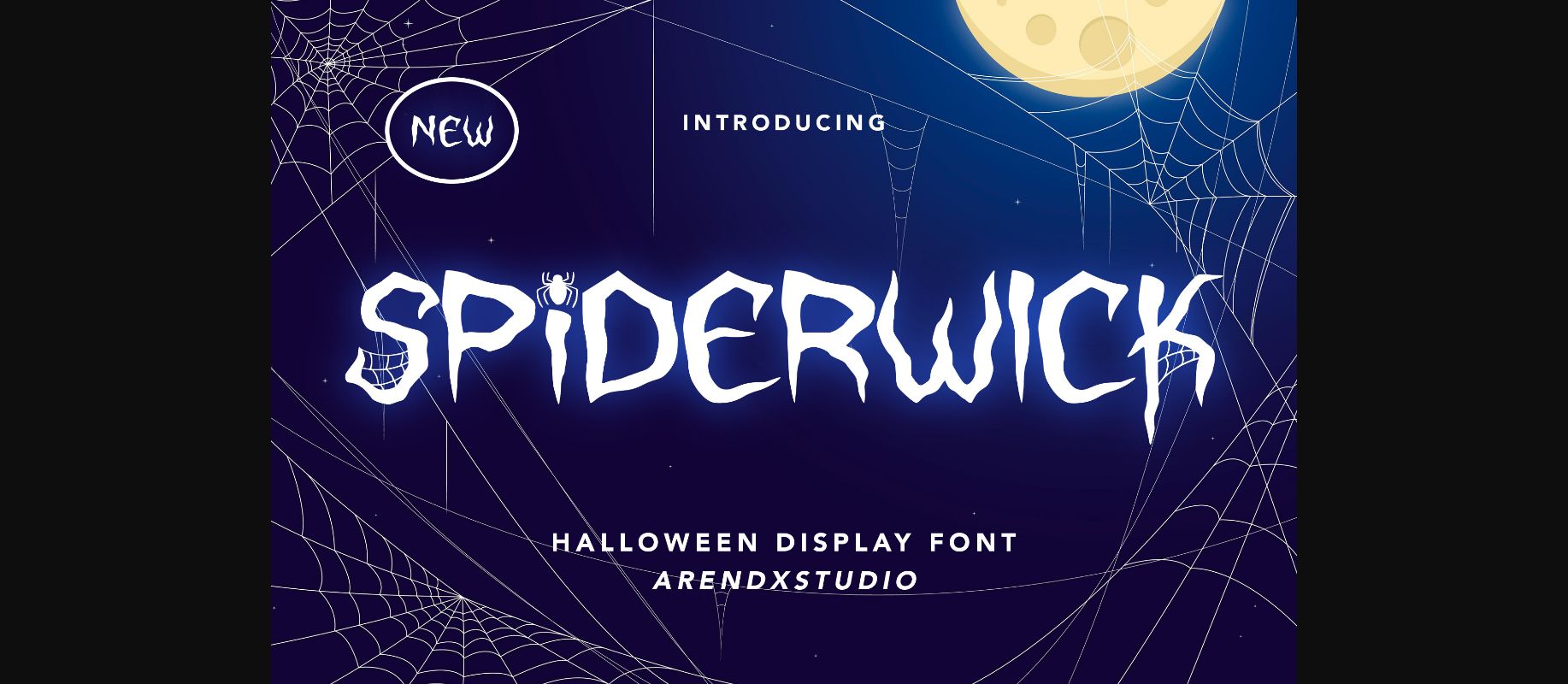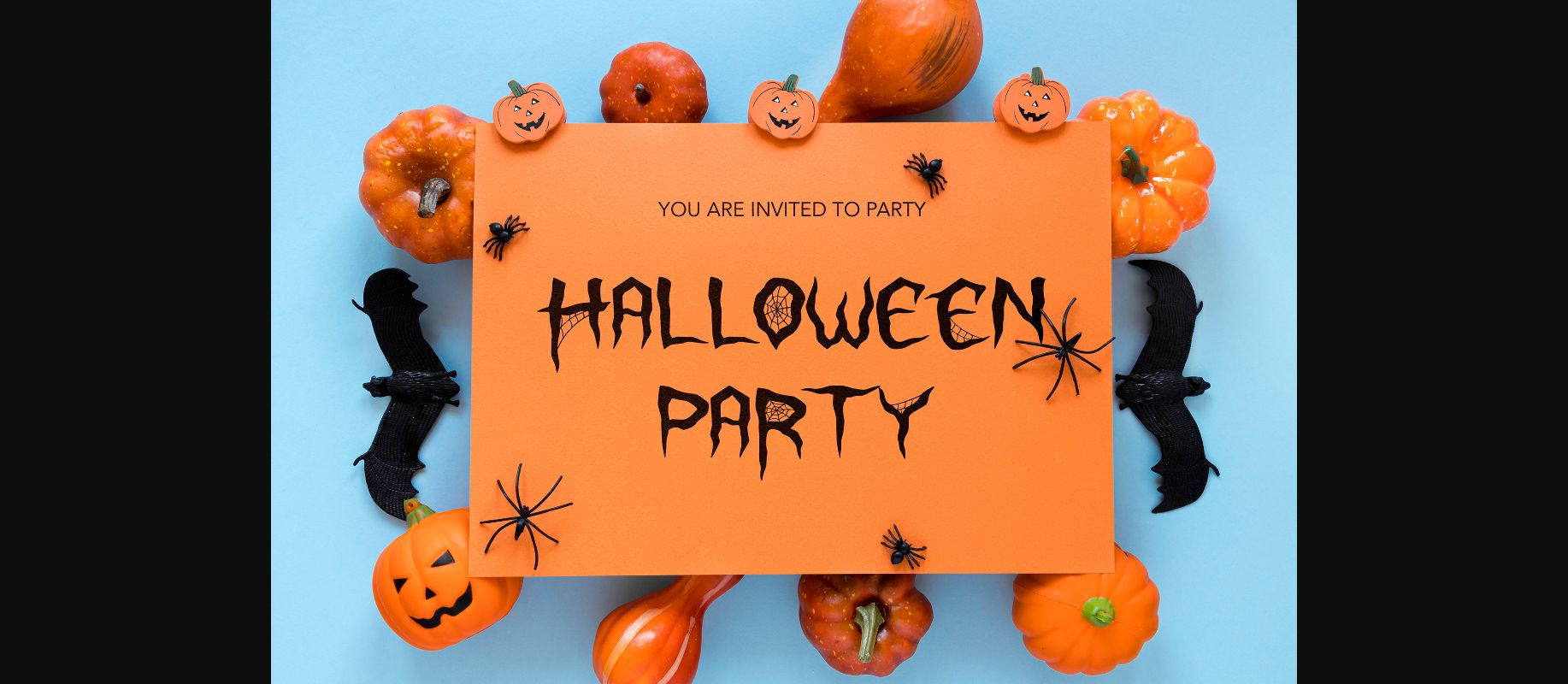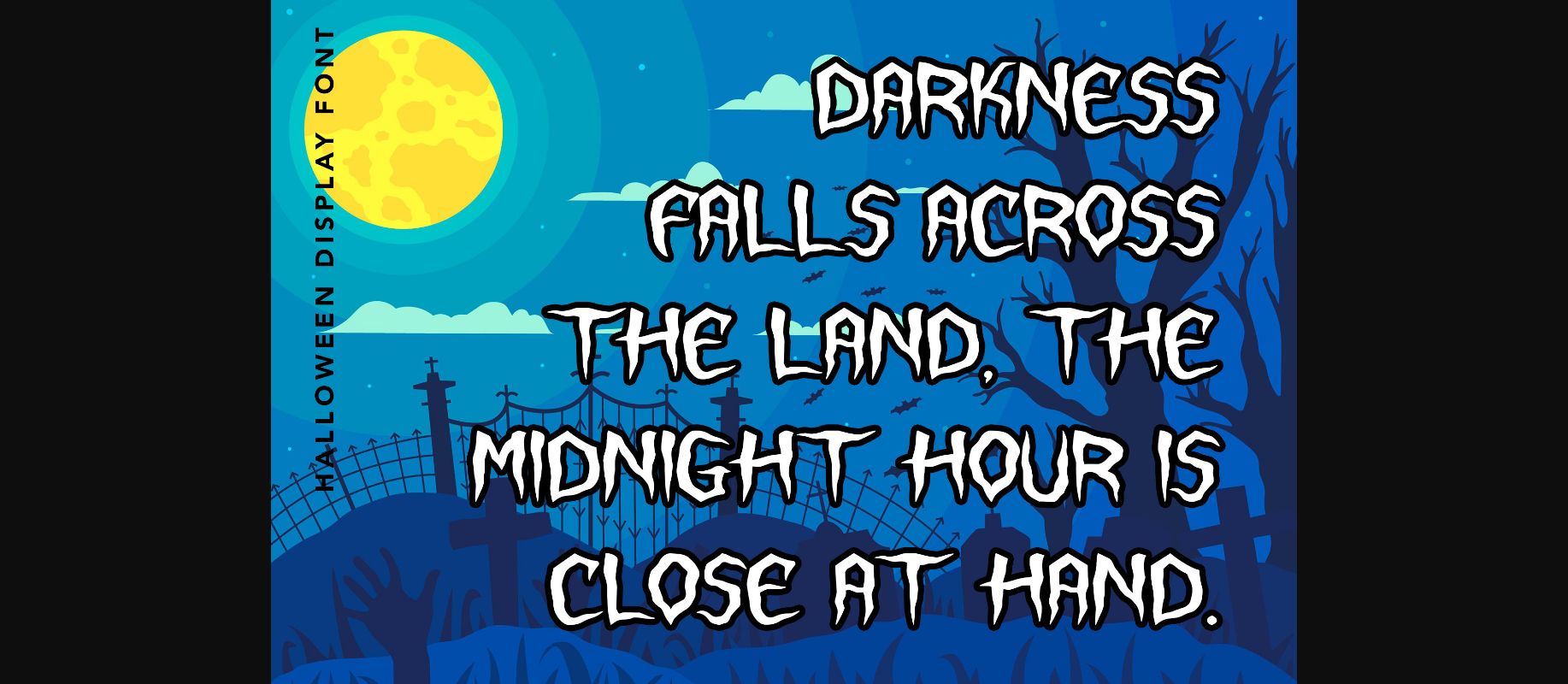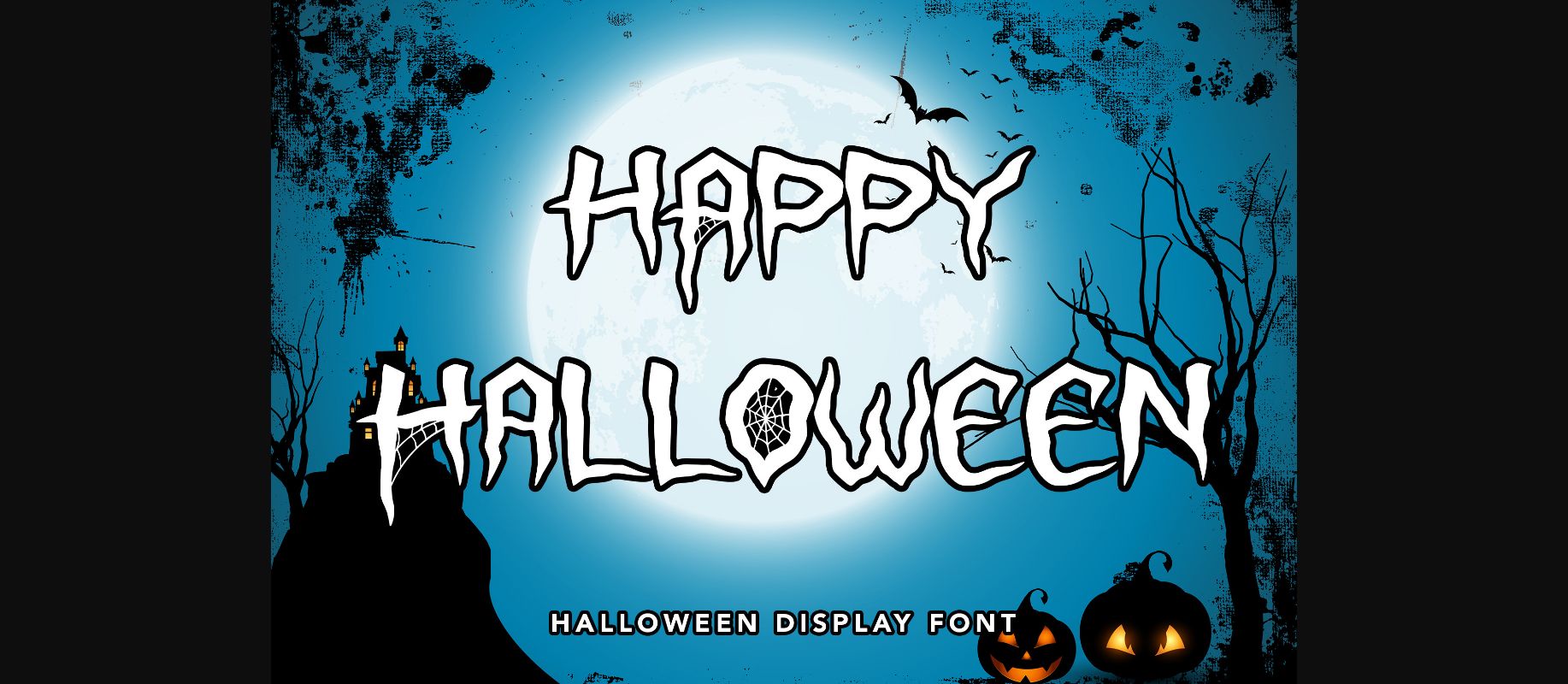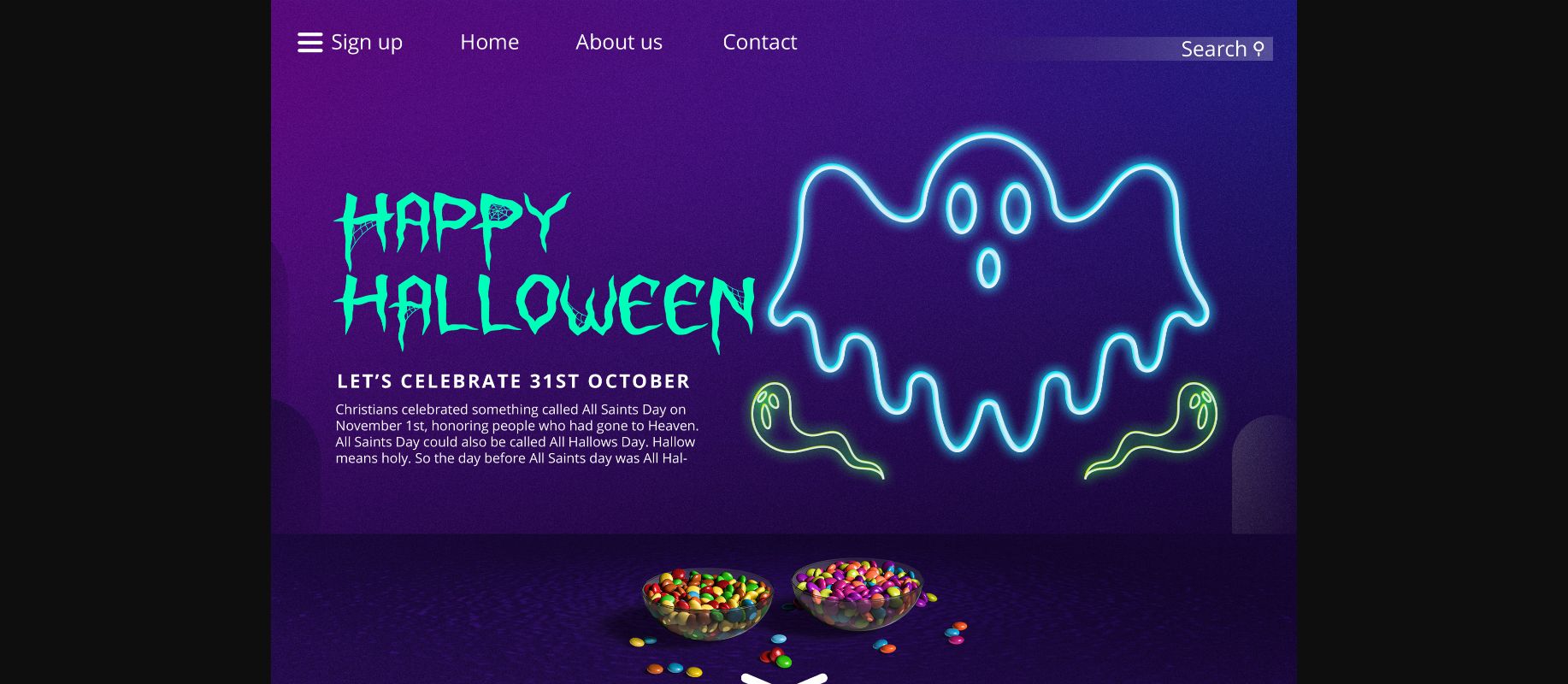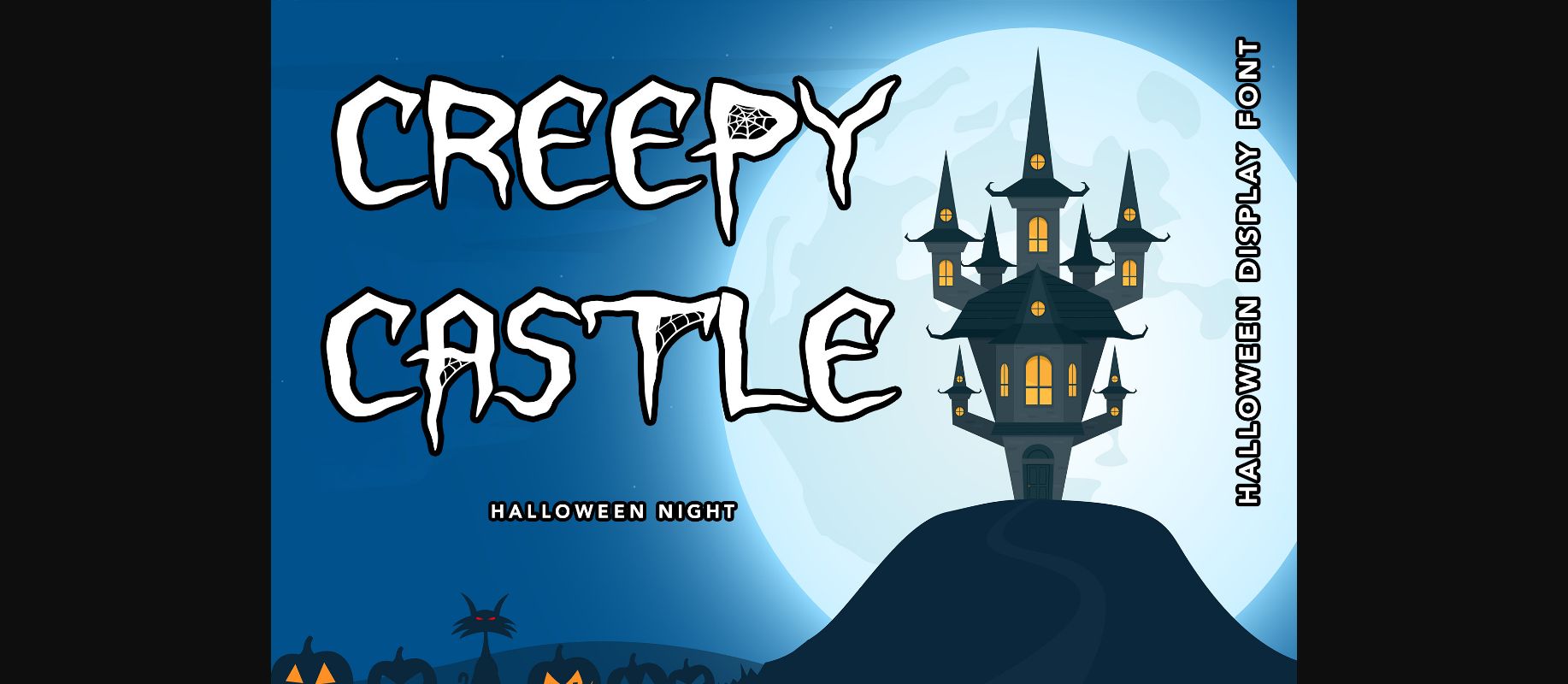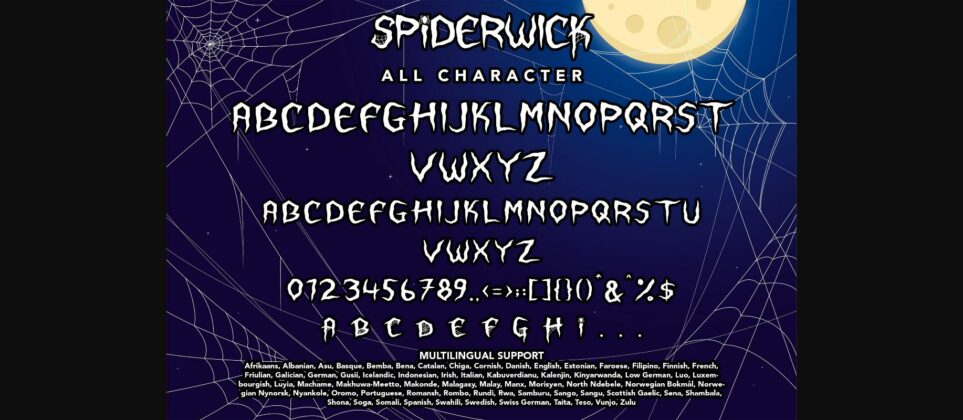
Spiderwick Font
About Spiderwick Font
Spiderwick is a cool, spooky decorative font. Whether you use it for cartoon related designs, children games or just any creation that requires a lovely touch, this font will be an amazing choice.